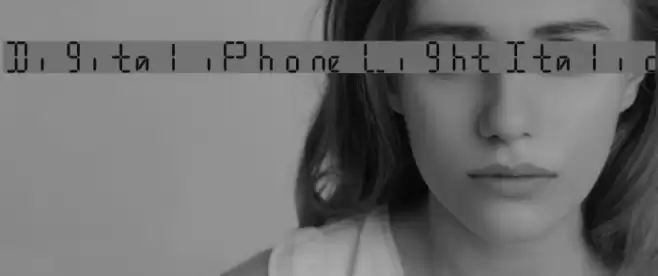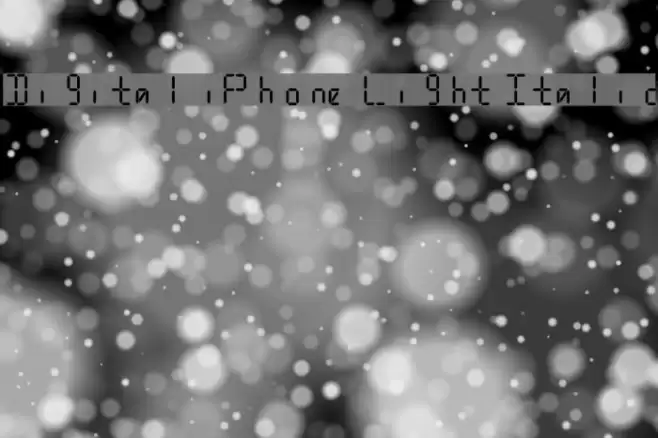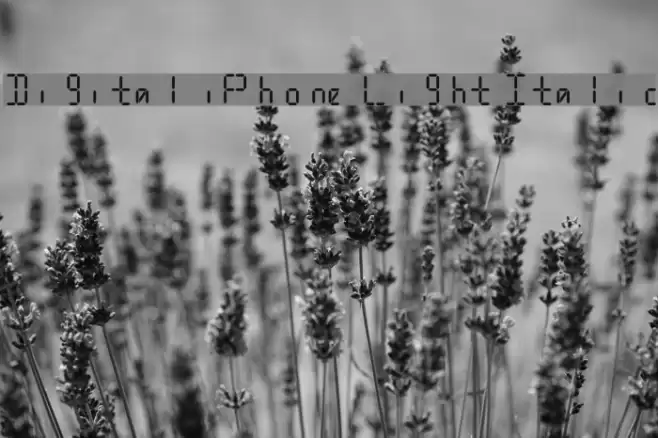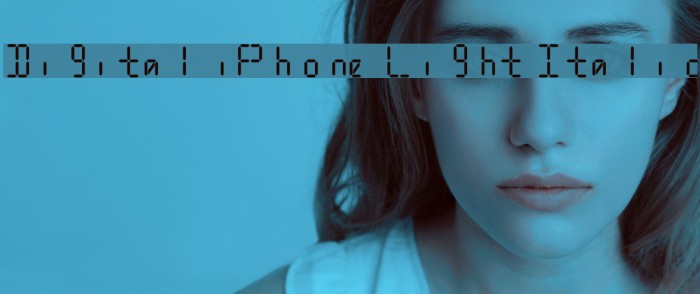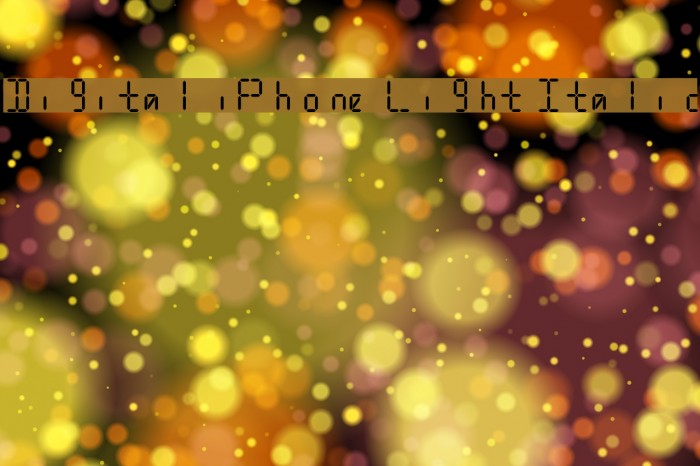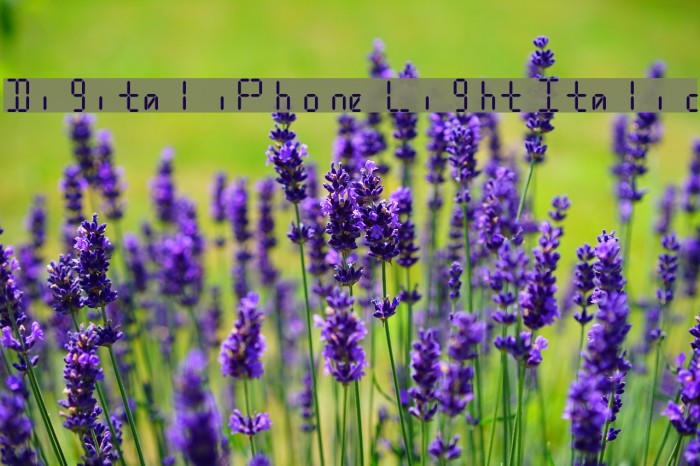
Digital iPhone Light Italic Font
Digital iPhone Light Italic Description
This font features a digital, segmented style reminiscent of classic LED displays, commonly seen on digital clocks and calculators. Each character is formed by a series of connected segments, creating a geometric and technical appearance. The uppercase and lowercase letters maintain a consistent height and width, contributing to a uniform look. The numerals and special characters follow the same segmented design, ensuring cohesiveness across all glyphs. The font's light weight and italic slant add a modern touch, making it suitable for digital-themed projects. Its clear and legible design is ideal for conveying a futuristic or technological aesthetic.
A segmented, digital-style font with a light, italic slant from Uncategorized fonts.
- Proposed Projects: Ideal for digital displays, tech-themed graphics, and modern branding.
- Use Case: Headlines, Logos, Digital displays